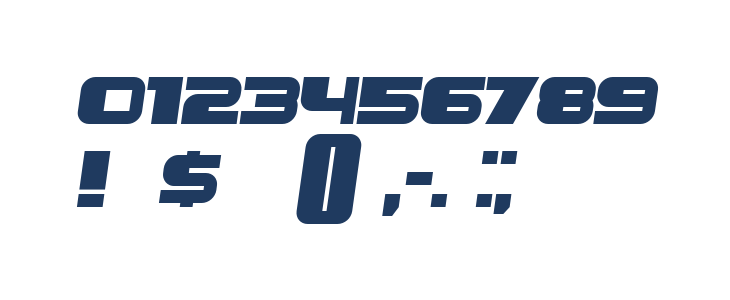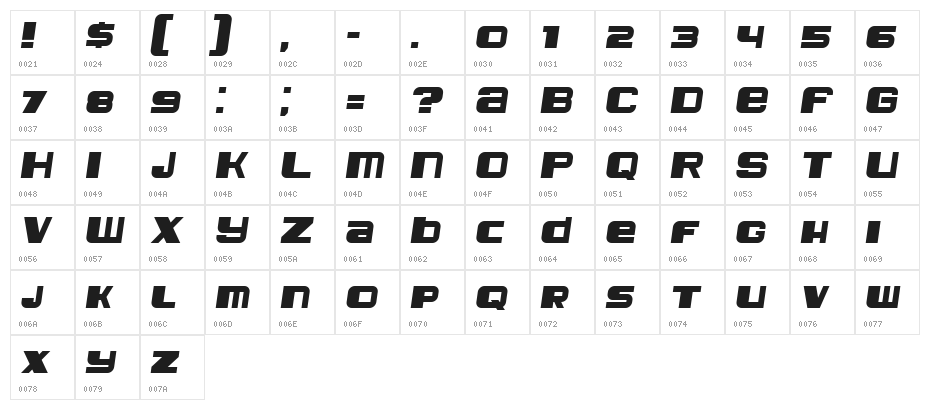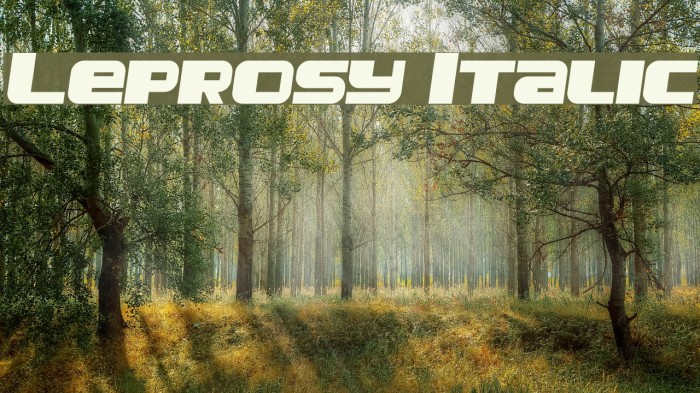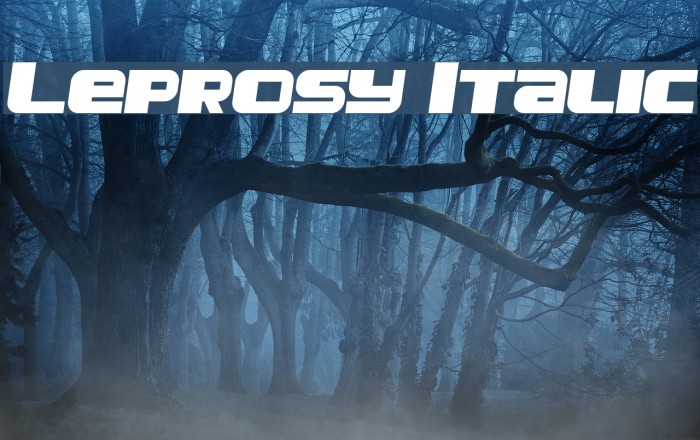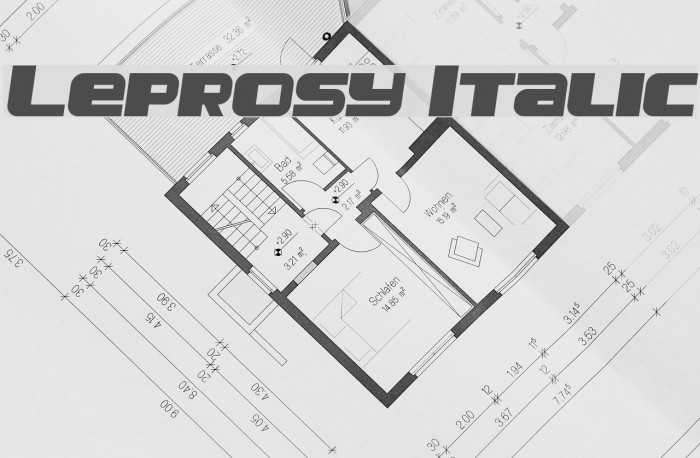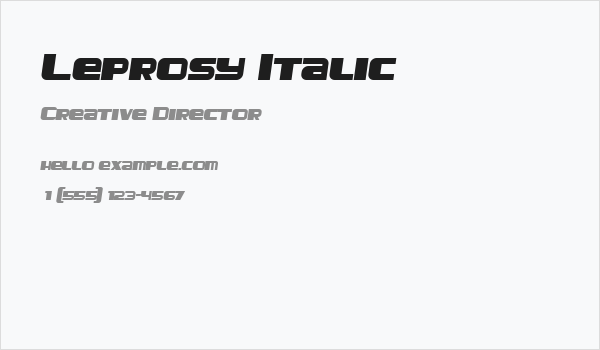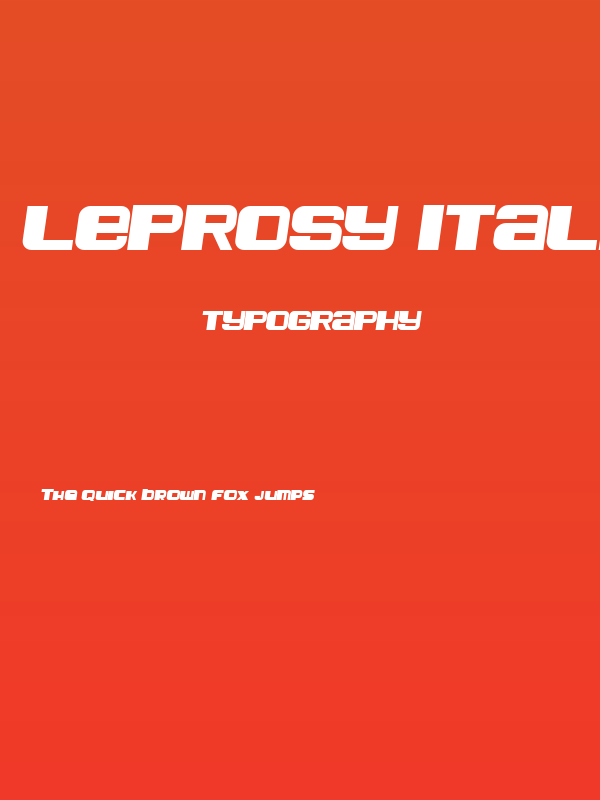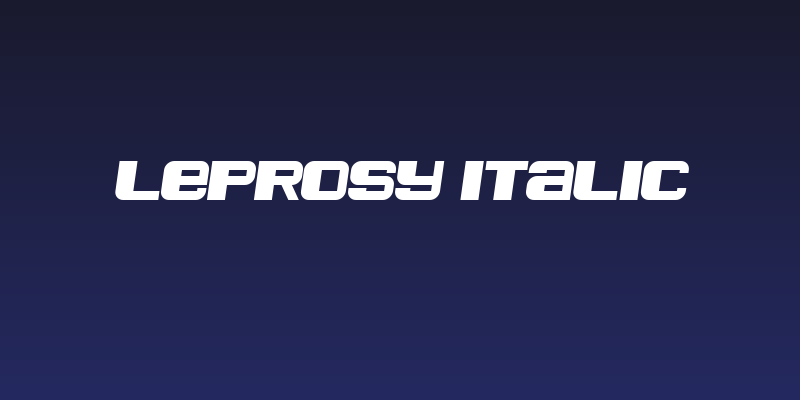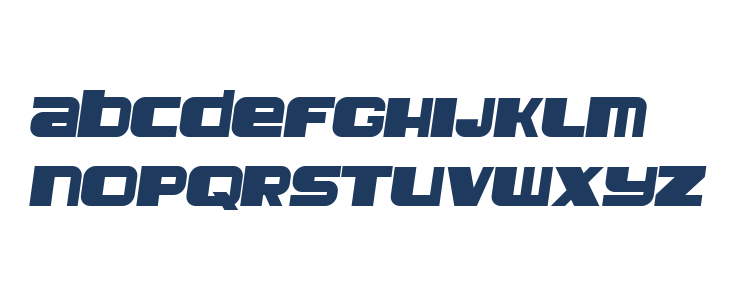
Leprosy Italic Font
Leprosy Italic Description
This font features a bold and dynamic style with a strong italic slant, giving it a sense of motion and energy. The characters are wide and have a robust presence, making them stand out prominently. The uppercase and lowercase letters maintain a consistent style, with sharp edges and a modern aesthetic. The numbers are equally bold, ensuring they are easily readable. Special characters are designed to match the overall bold and italicized theme, providing a cohesive look across all elements. This font is ideal for projects that require a striking and impactful visual presence.
| Proposed Projects | Ideal for sports branding, dynamic posters, and modern advertising campaigns. |